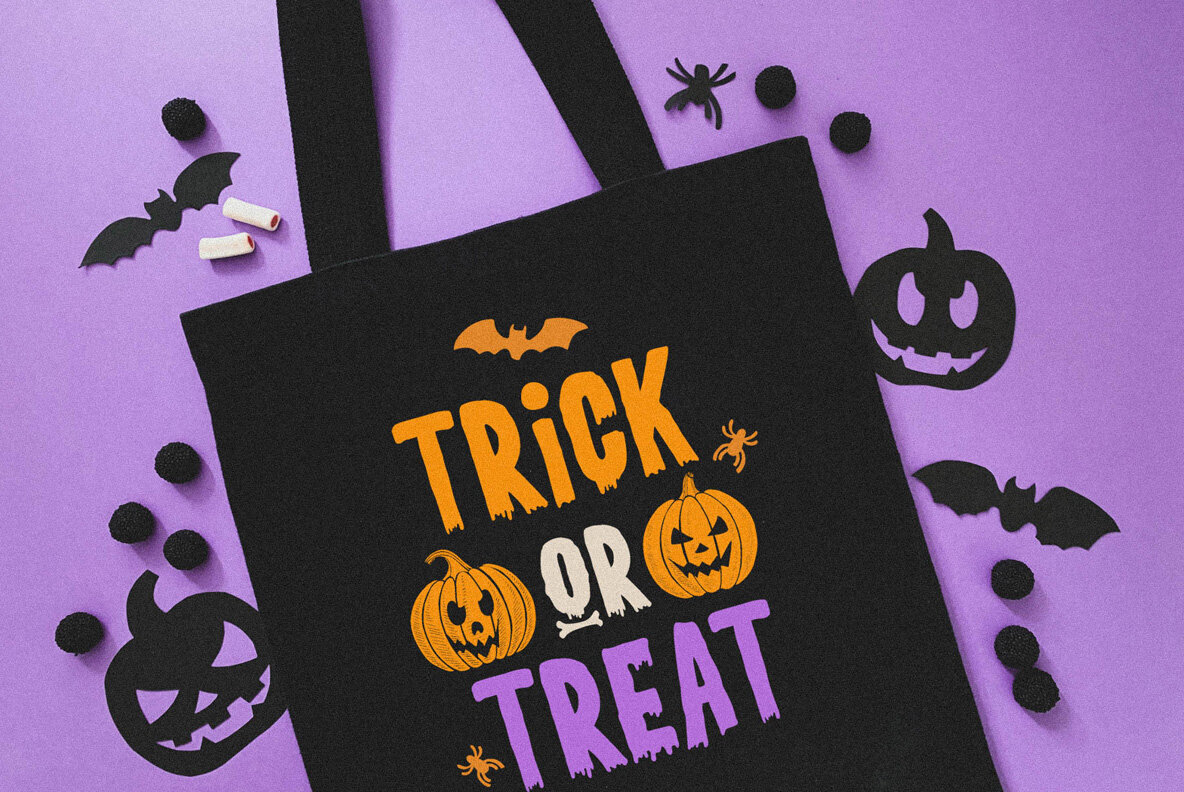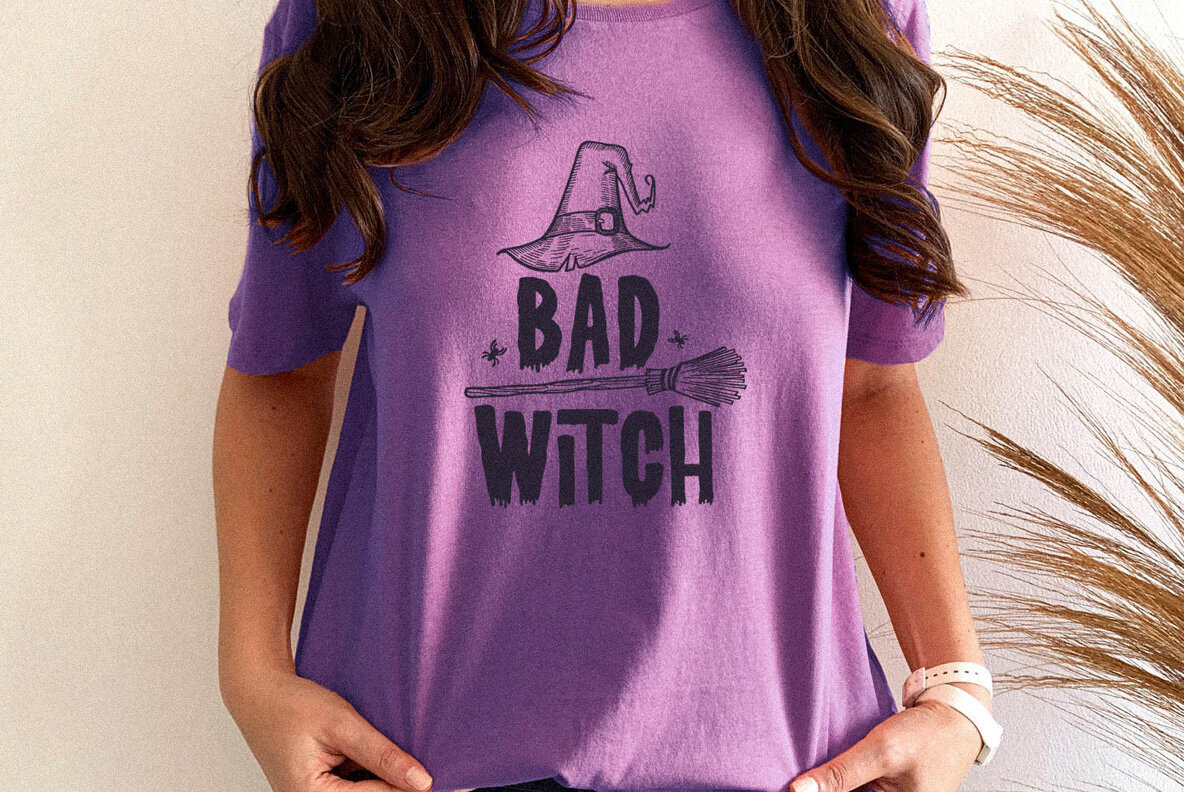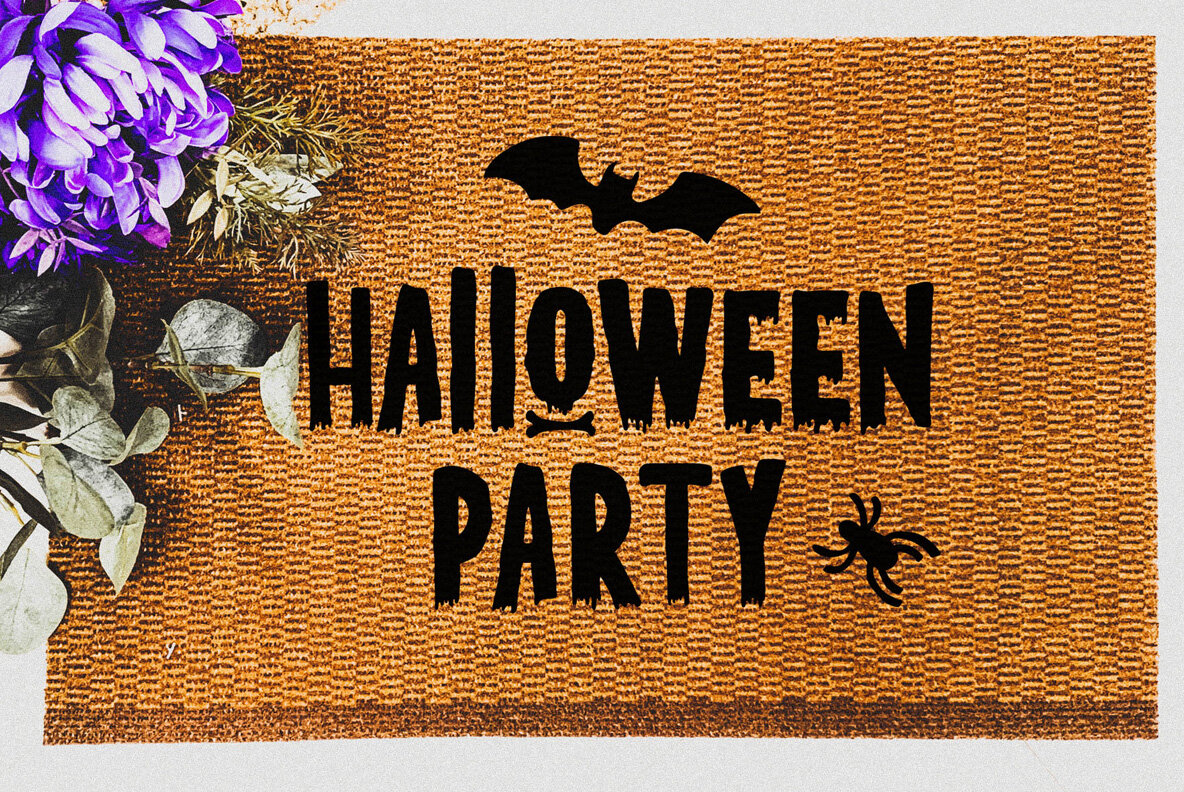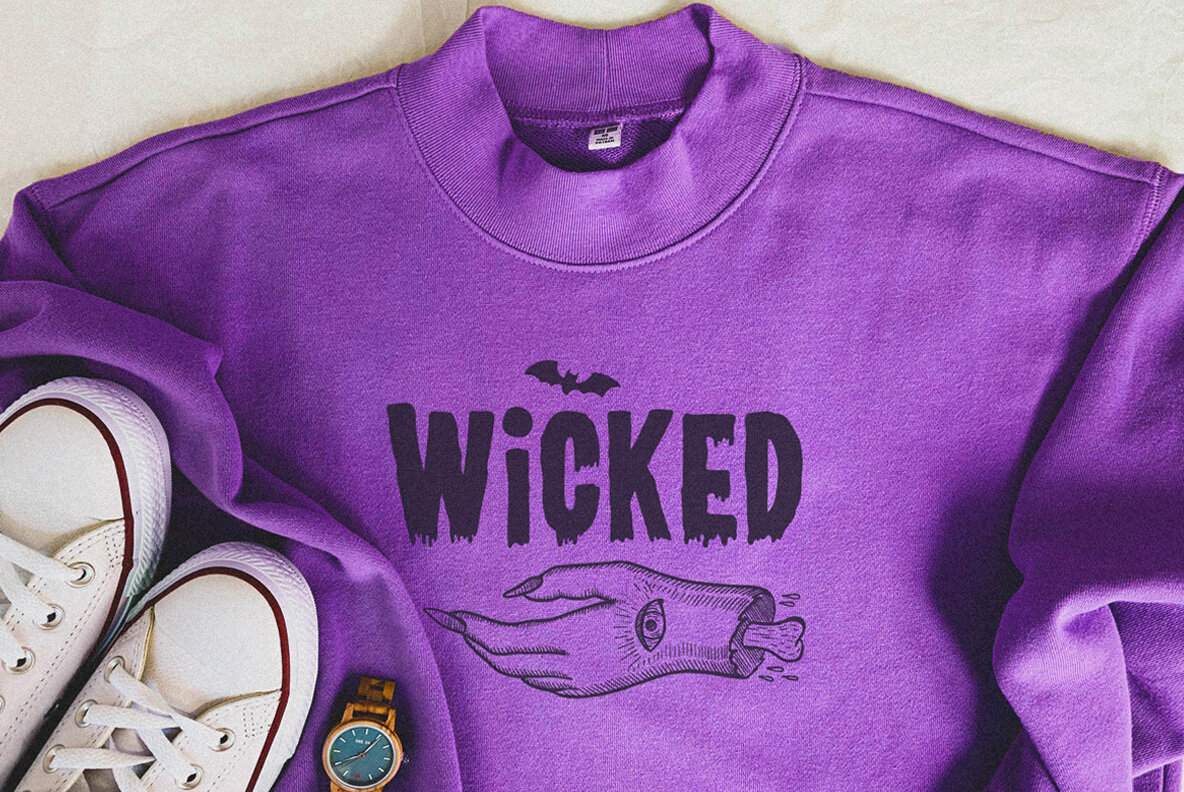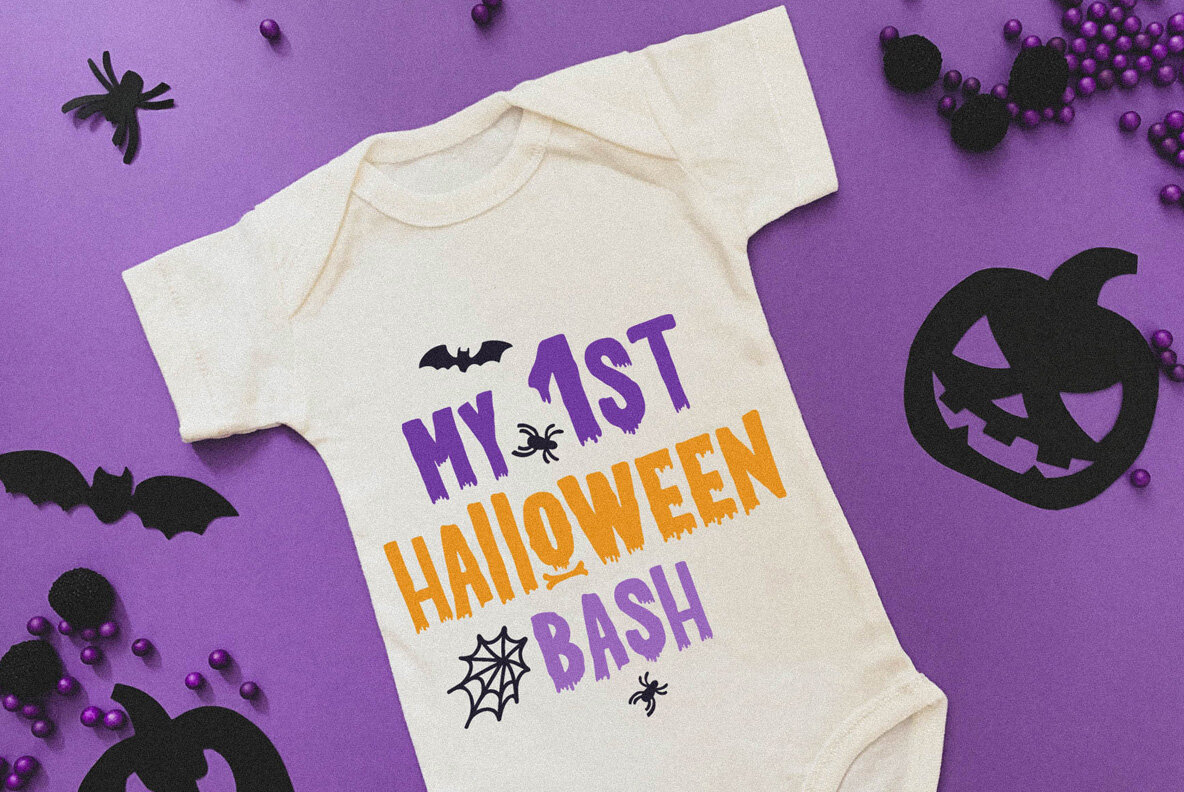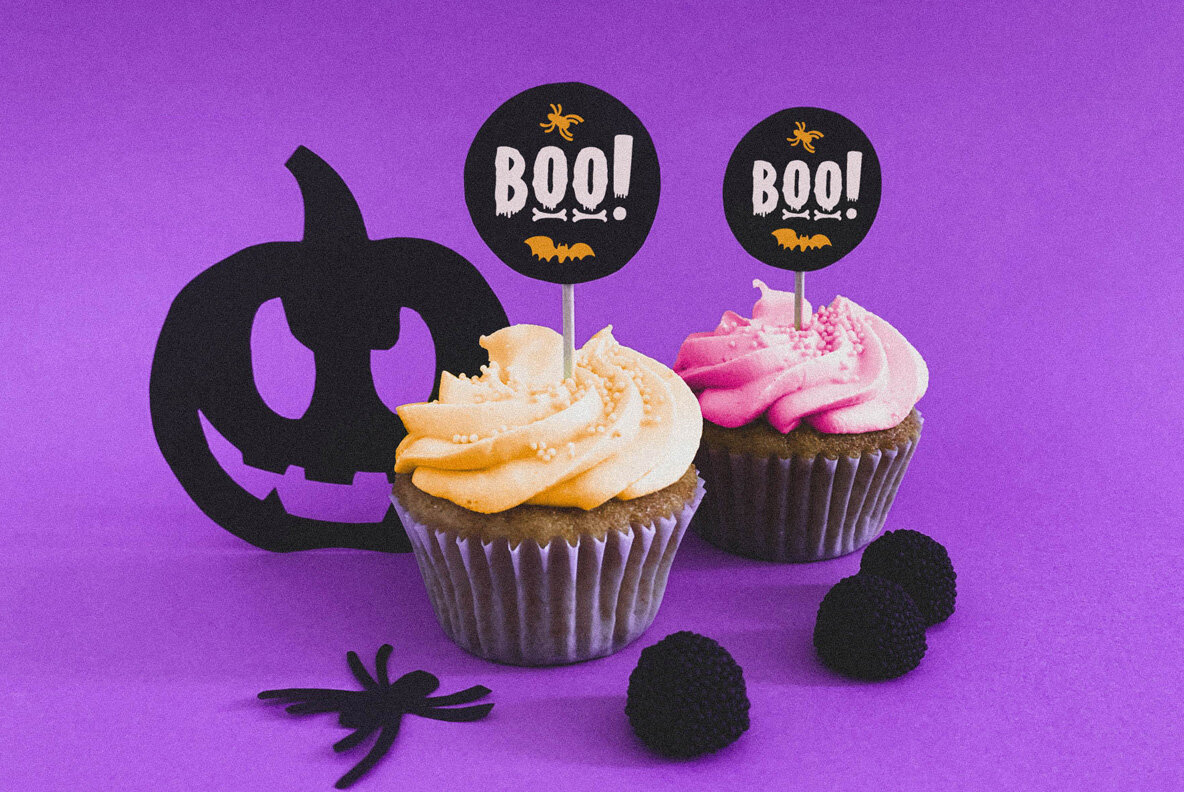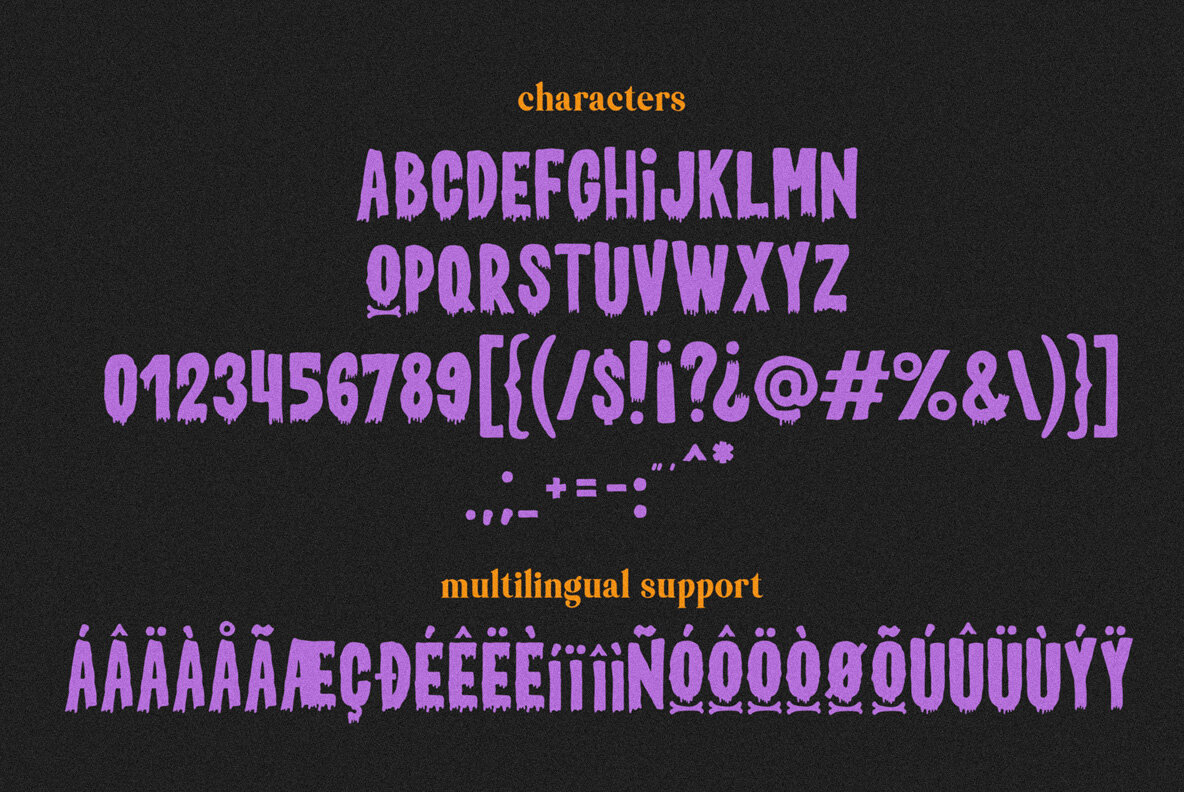
Hocus Pocus Font
Hocus Pocus Regular
This font is perfect for creating spooky hand-drawn signs, or if you want to give your logo an extra dose of character! The multilingual support makes it easy because there are over 100 languages available.